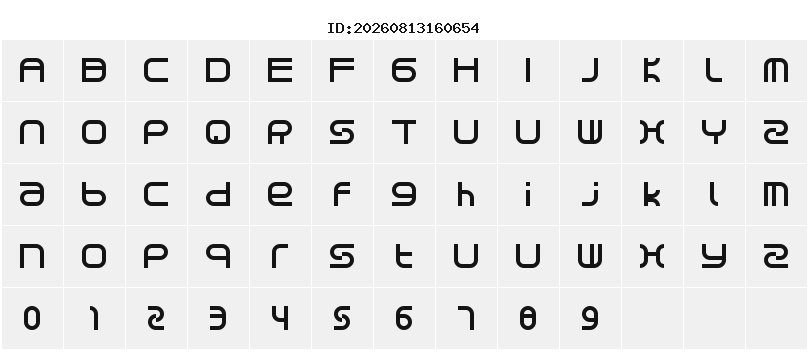
• Font Name: ROUND
• Designer: ente3000
• Description: ‚ÄúROUND‚Äù was built with FontStruct
About ROUND.ttf
ROUND.ttf is a modern, elegant sans-serif font designed for ultimate readability and visual harmony. Perfect for branding, headlines, web design, and print materials.